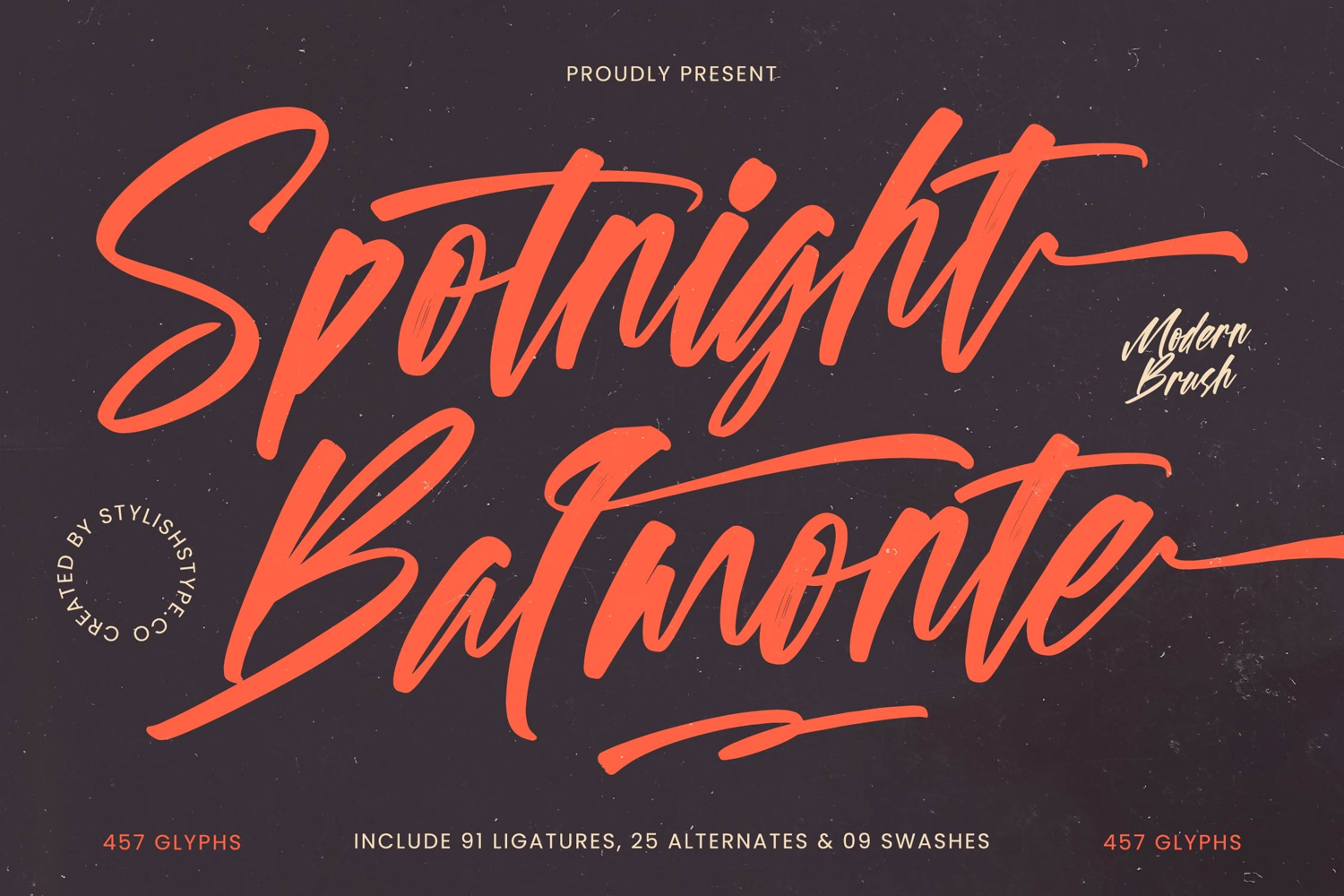
Spotnight Balmonte - Modern Brush Font Script
Spotnight Balmonte Italic
Spotnight Balmonte
Spotnight Balmonte - Modern Brush Font Script, a typeface that commands immediate attention. This expressive script embodies the raw energy and fluidity of authentic brushwork, delivering a compelling hand-crafted feel with a decidedly modern aesthetic. Its bold strokes and elegant connections create a truly captivating visual flow, perfect for making an unforgettable first impression and ensuring your message stands out.